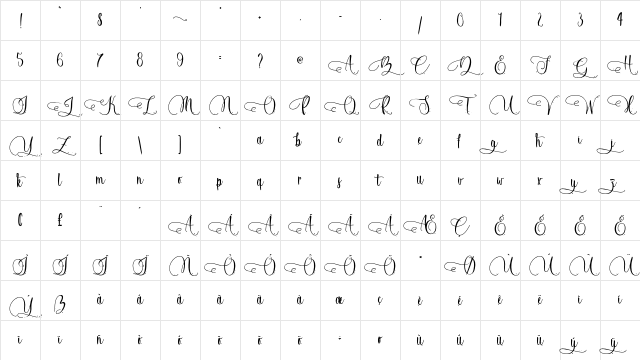
Xanthousy - Personal Use Regular Free Font
Xanthousy - Personal Use Regular
Foundry: Typhoon Type - Suthi Srisopha
Designer: Typhoon Type - Suthi Srisopha
Design Context for Xanthousy - Personal Use
Xanthousy - Personal Use is a composed and adaptable typeface that performs quietly and consistently across a wide range of design contexts.